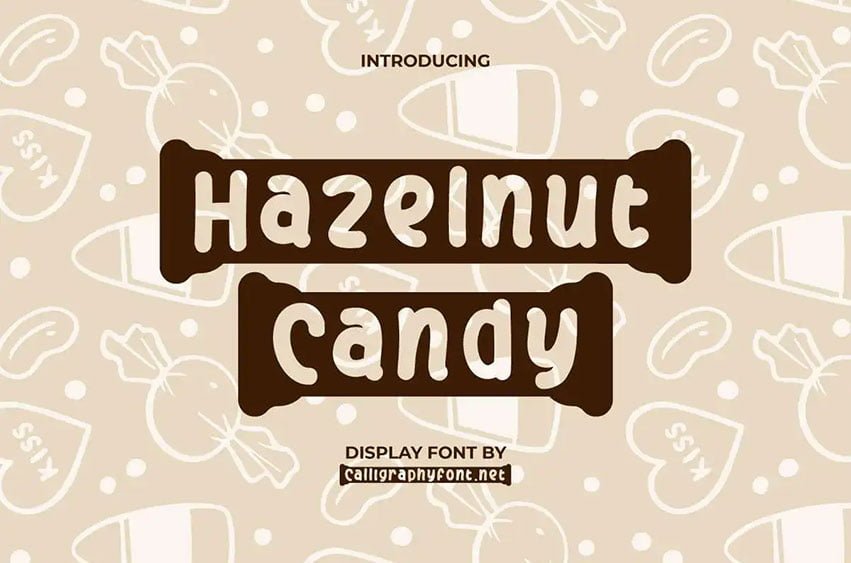
Hazelnut Candy Font is an adorable child type font and a great choice for use as main text or paired with other font types. It’s great for any industry, including: accessories, advertisement, author, bakery, children’s events or parties, candy shop, chocolate product, cooking class, education, handicraft, interior design, kids fashion, kindergarten, library, photography, printing, publishing, restaurant, toy store, etc.